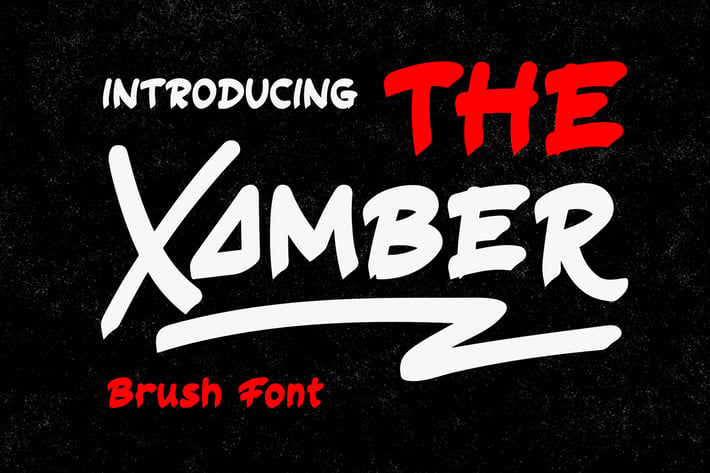
The Xamber - Brush Font
The Xamber is a unique display typeface perfect for titles, large text, branding, logotypes & graphic design purposes such as posters, pamphlets, and advertisements. This letter font can be a great choice for creating amazing logos, promotional content, and marketing presentations that can bring uniqueness and freshness at its best.
Uppercase and Lowercase letters
Numbering and Punctuations
Alternate